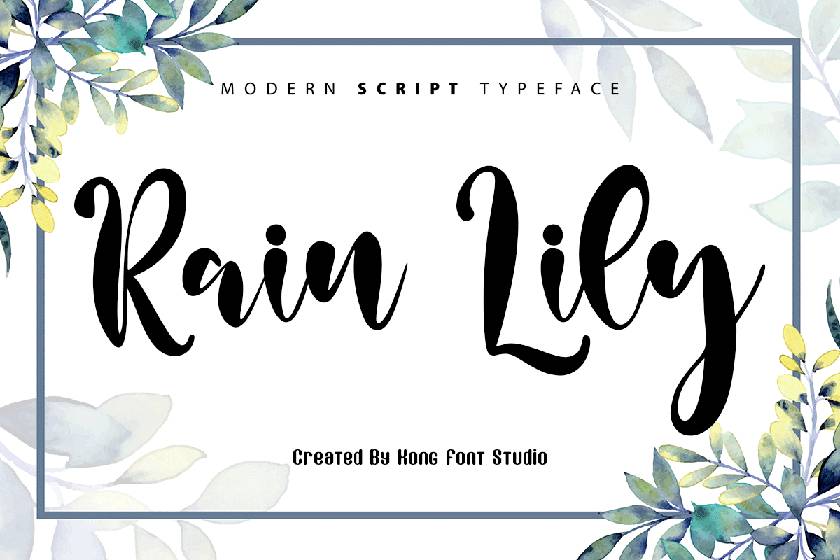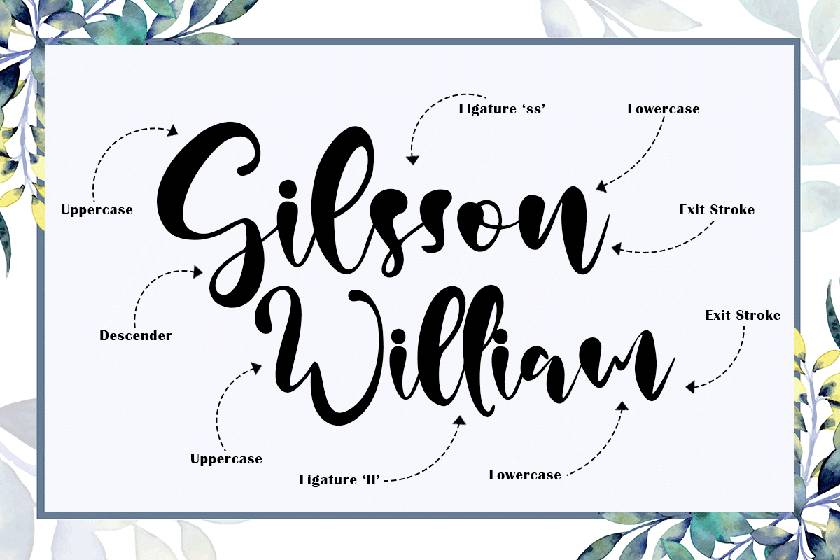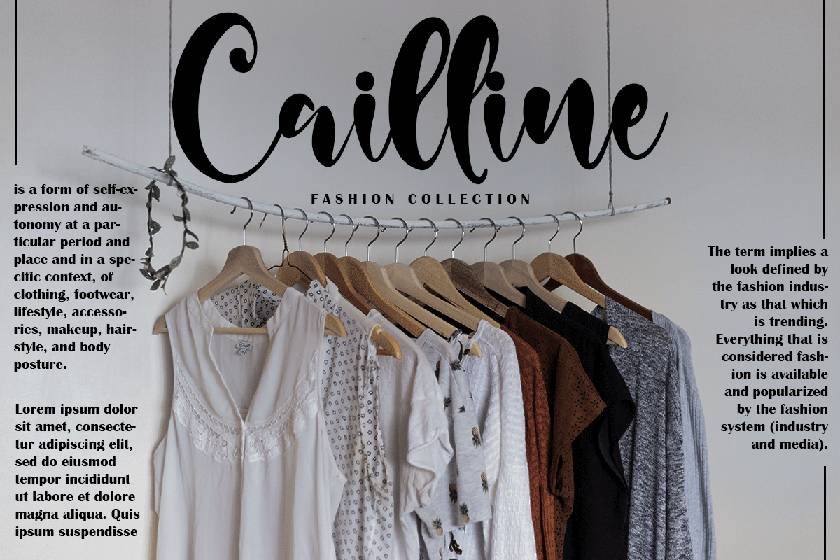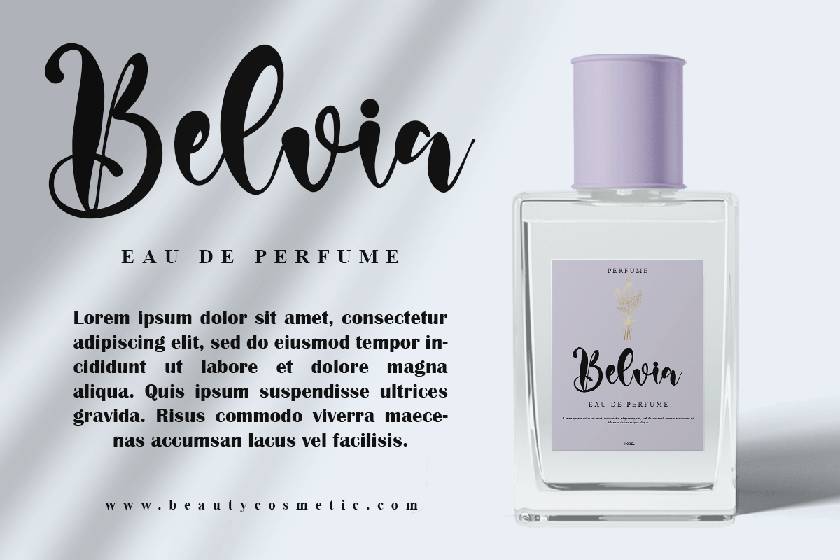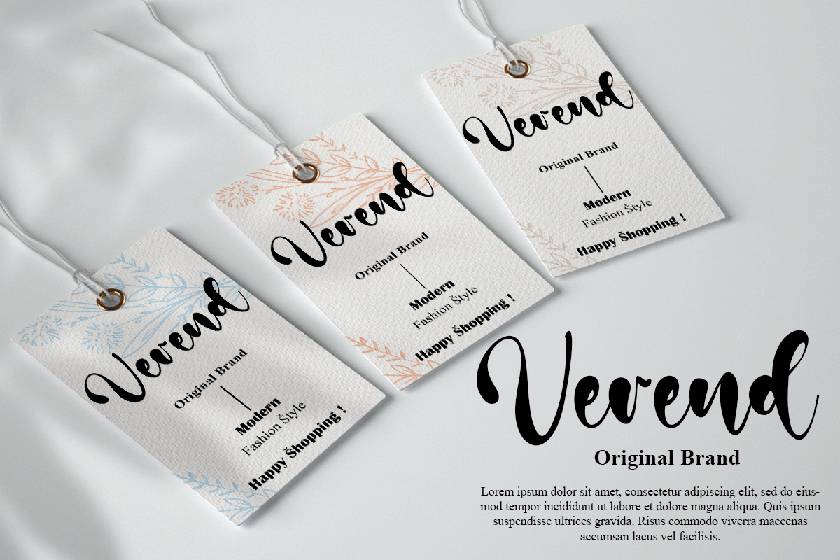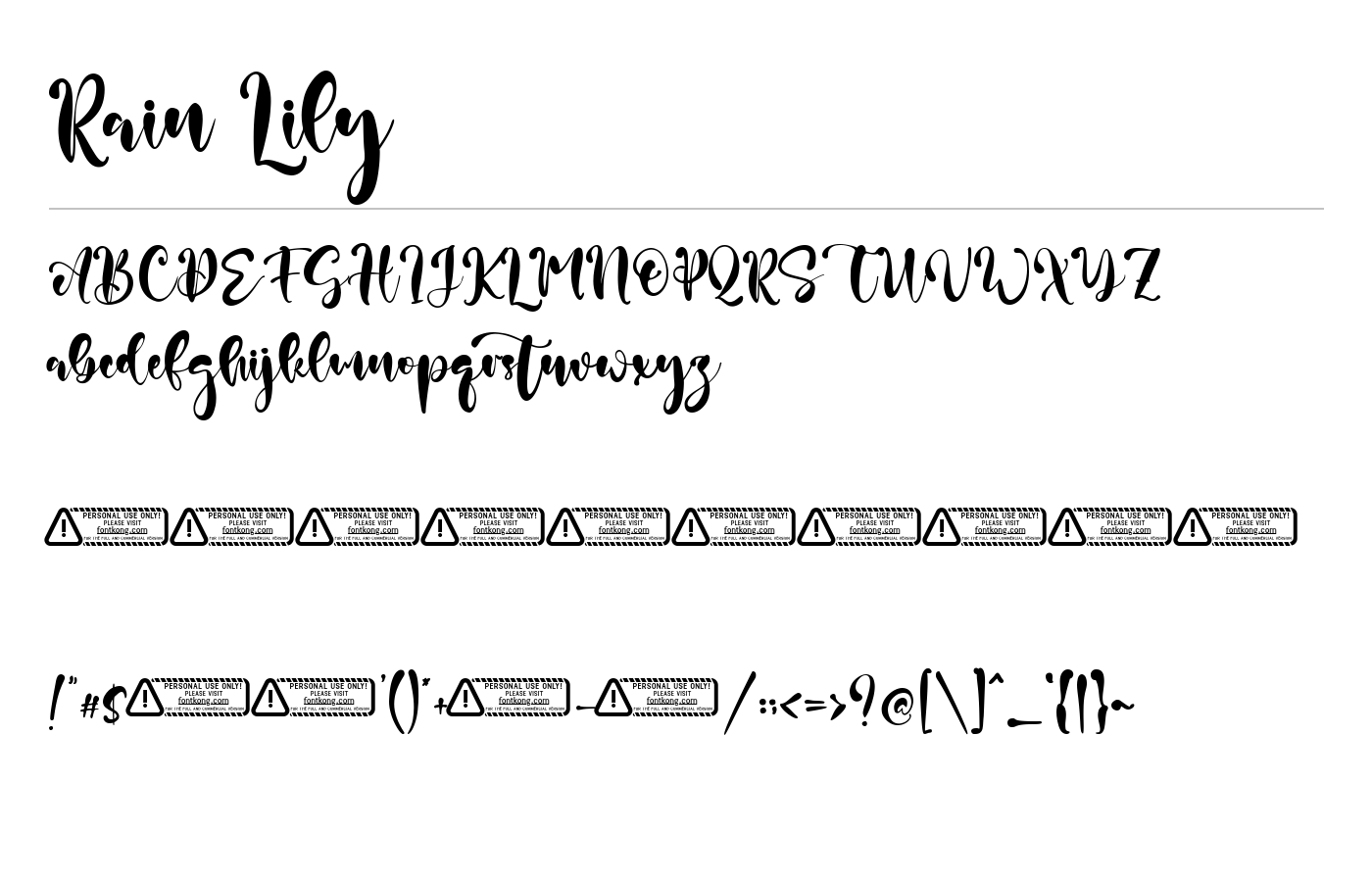
Rain Lily is a graceful script font with flowing, calligraphic strokes that give it a charming and elegant personality. Its smooth, slightly bold letterforms with rounded curves make it perfect for feminine branding, invitations, and decorative uses where a warm, handcrafted feel is desired. This font works beautifully for logos, wedding stationery, and social media graphics seeking a stylish yet approachable look.
Rain Lily Font
About Rain Lily Font